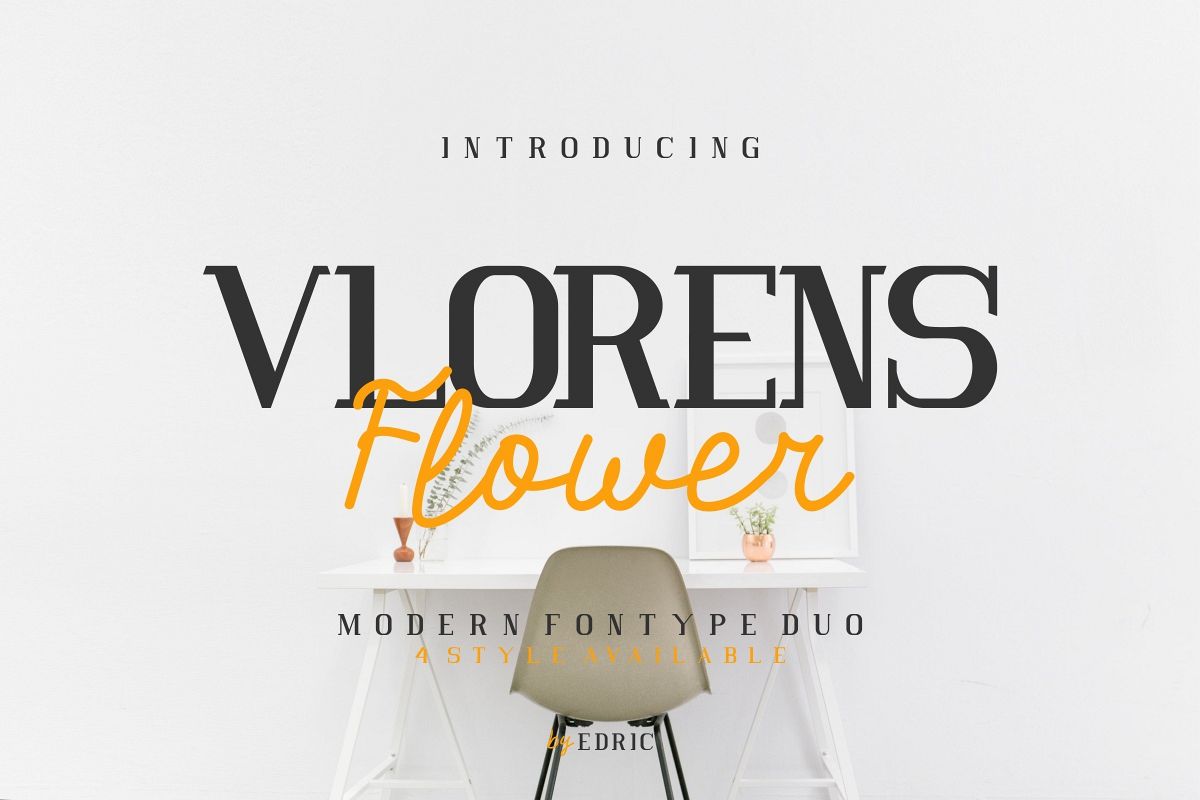
Vlorens Flower
Hello Guys! Introducing our newest font : Vlorens Flower ! This is a new font family consist of : Reguler Serif Display, Stencil, Script and Outline
It’s FOUR Fonts in a family. It’s modern and stylish Fonts